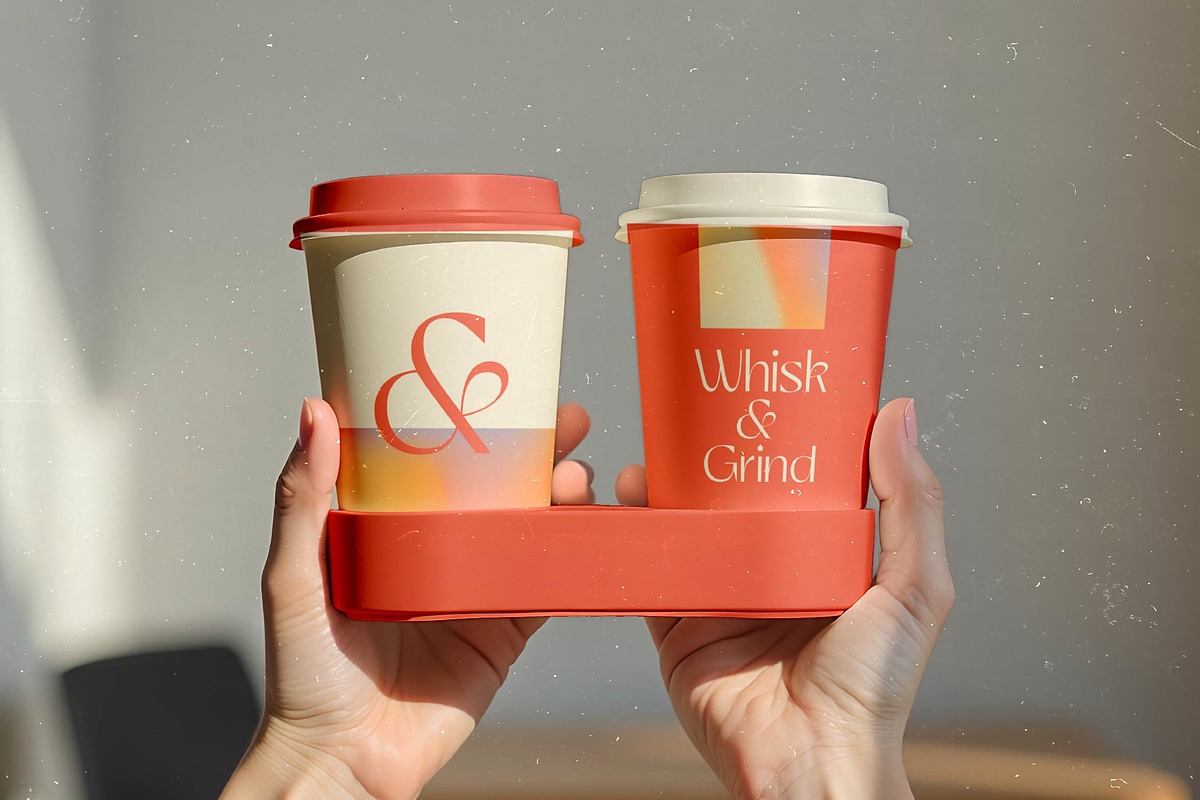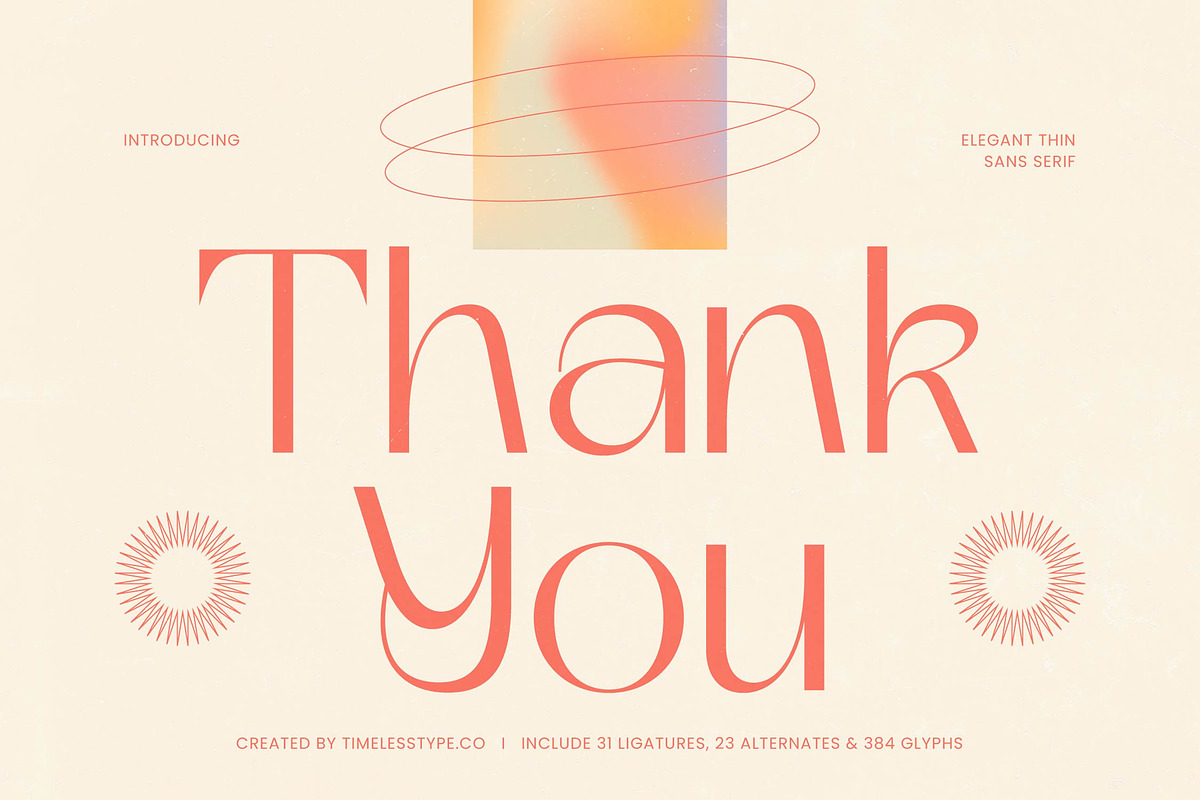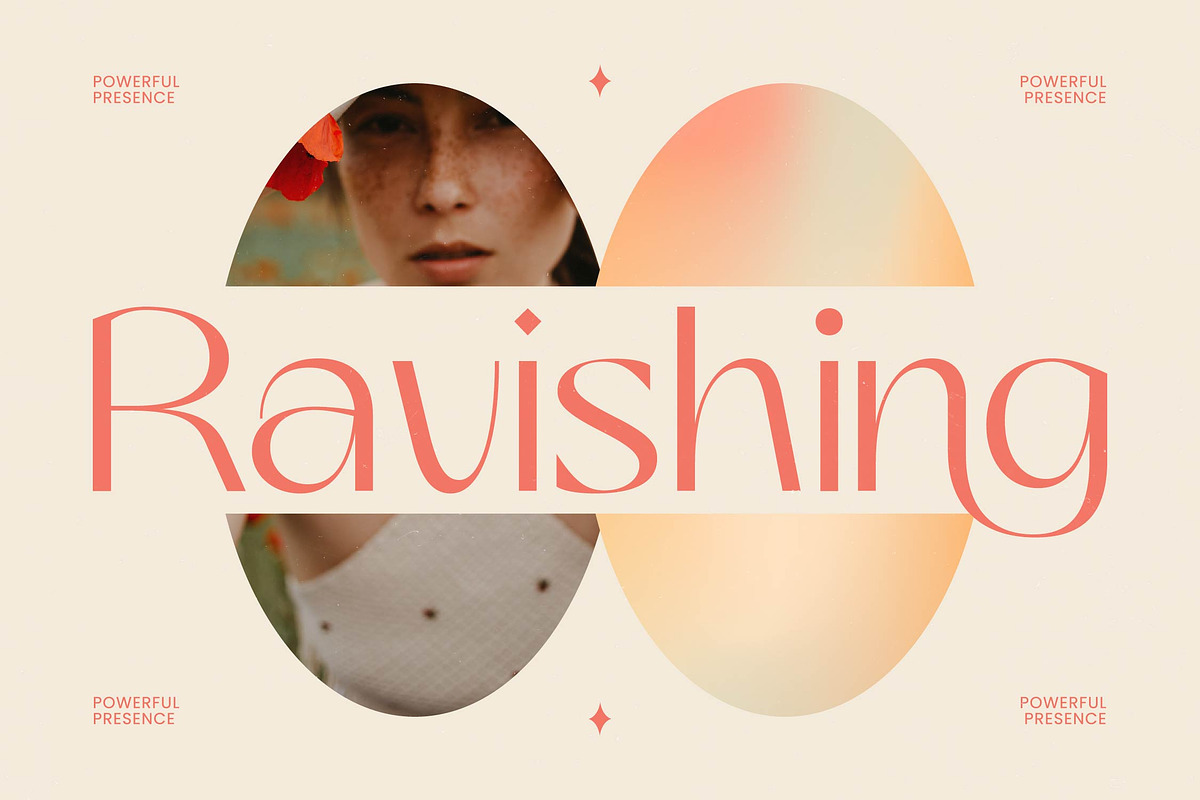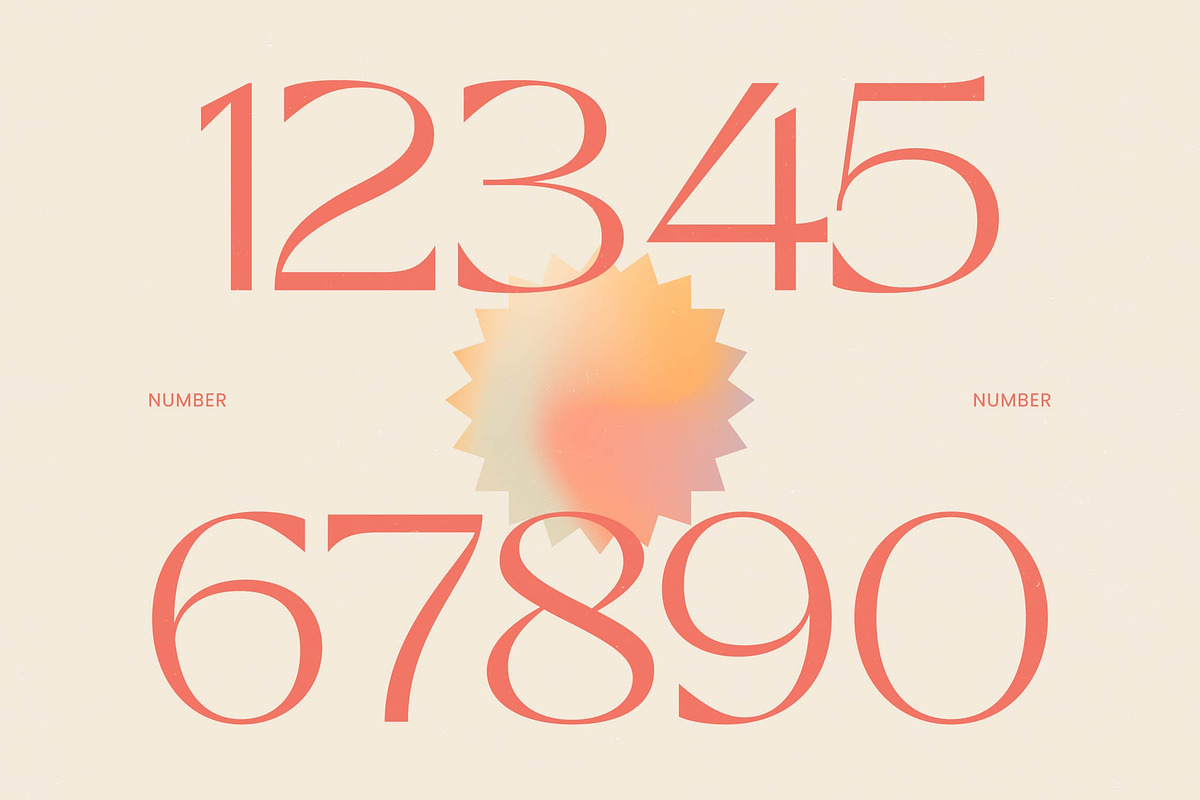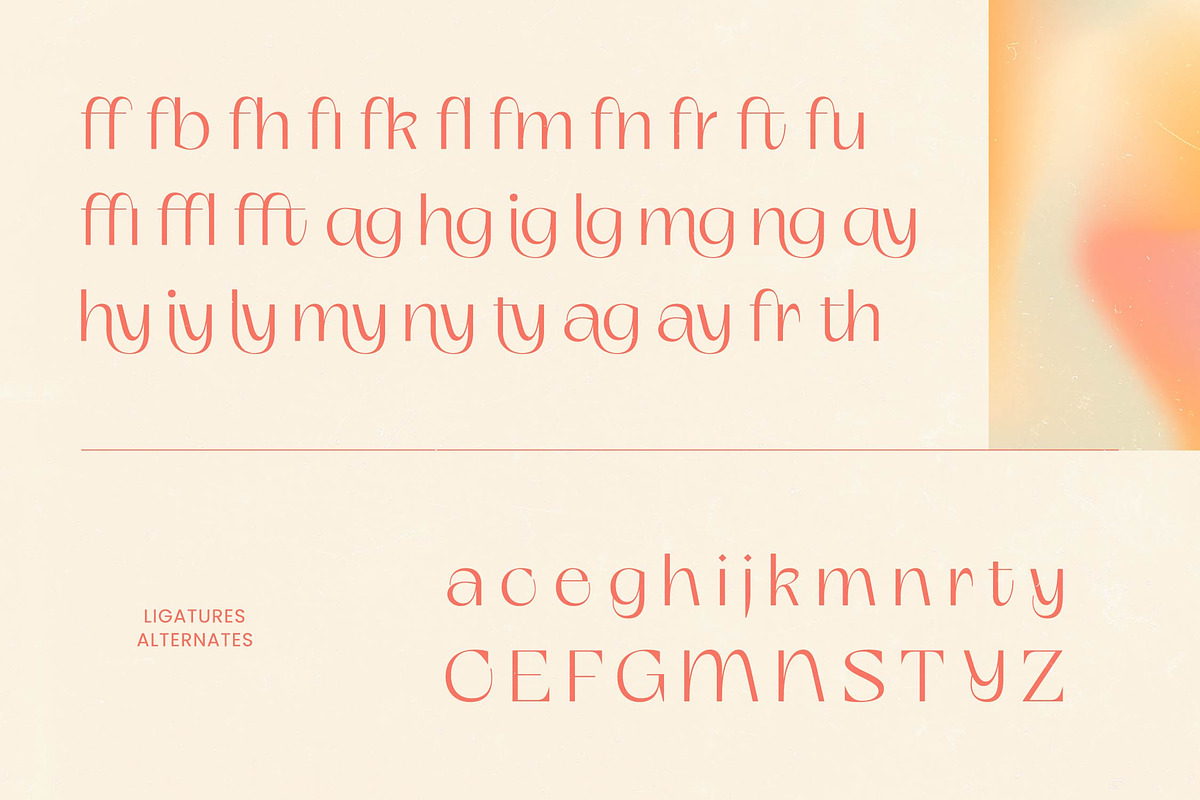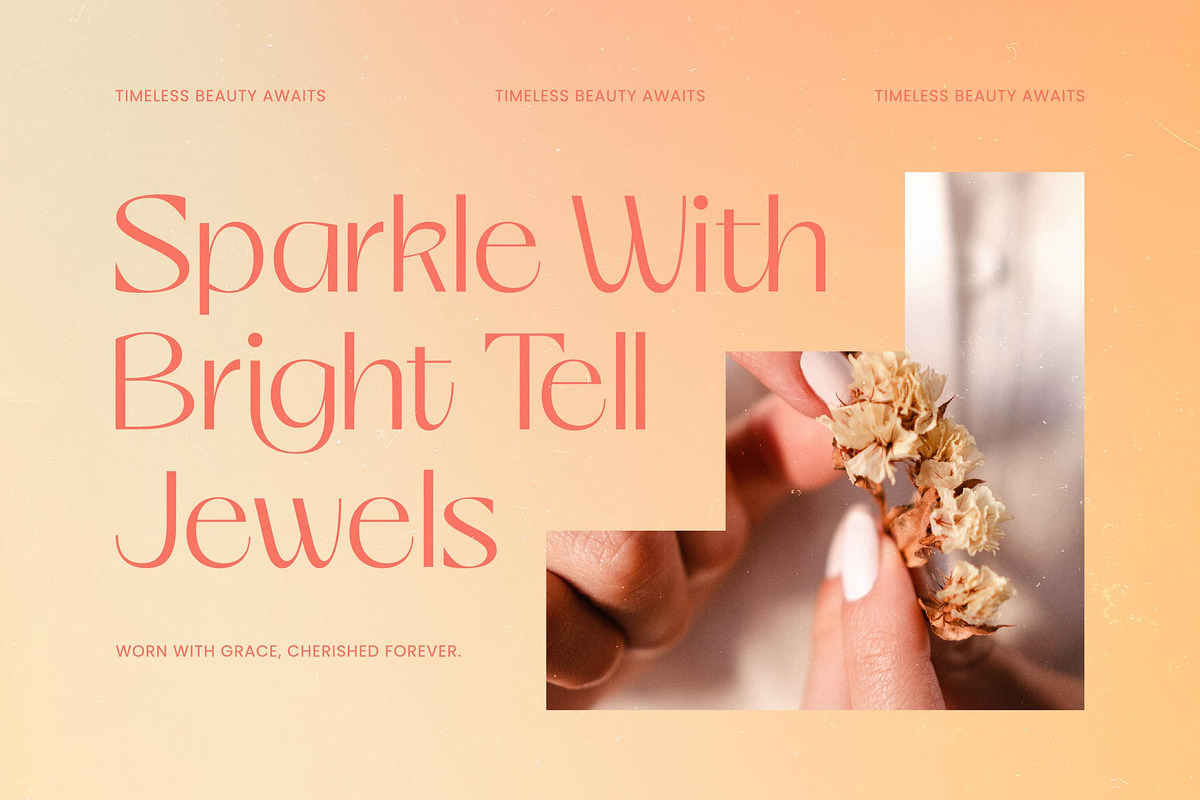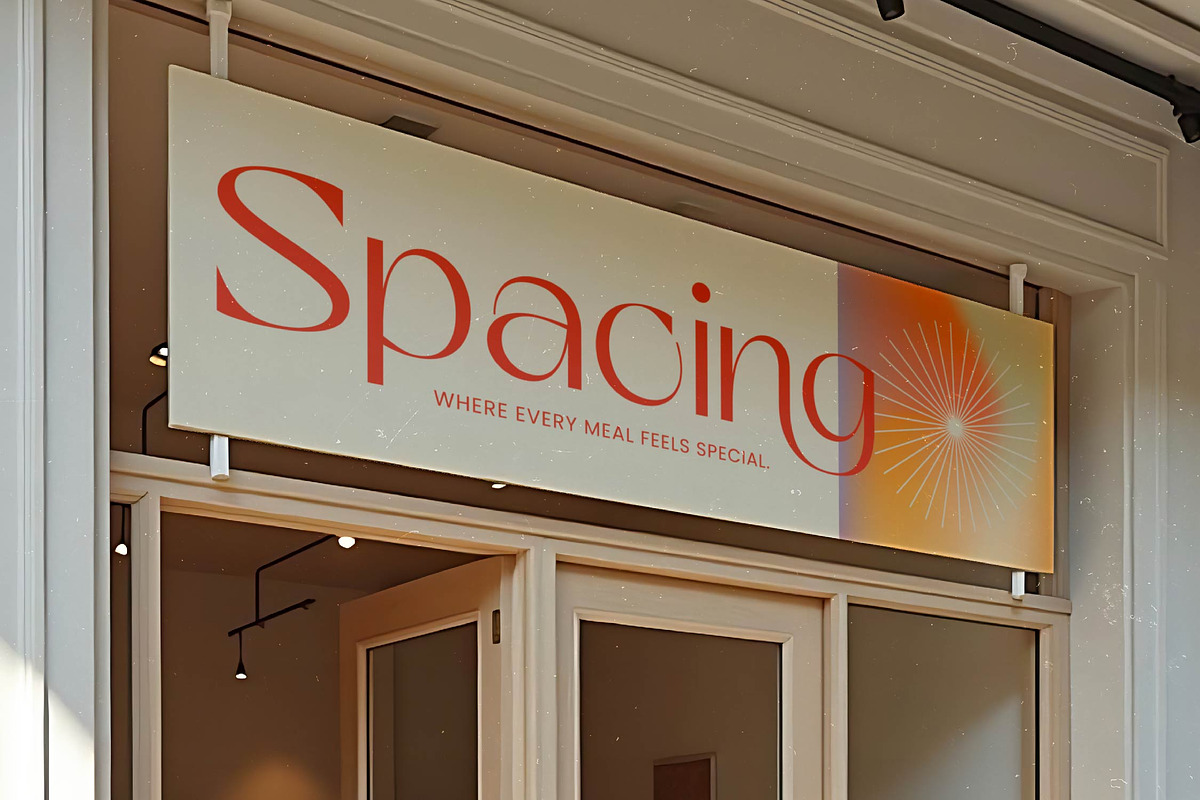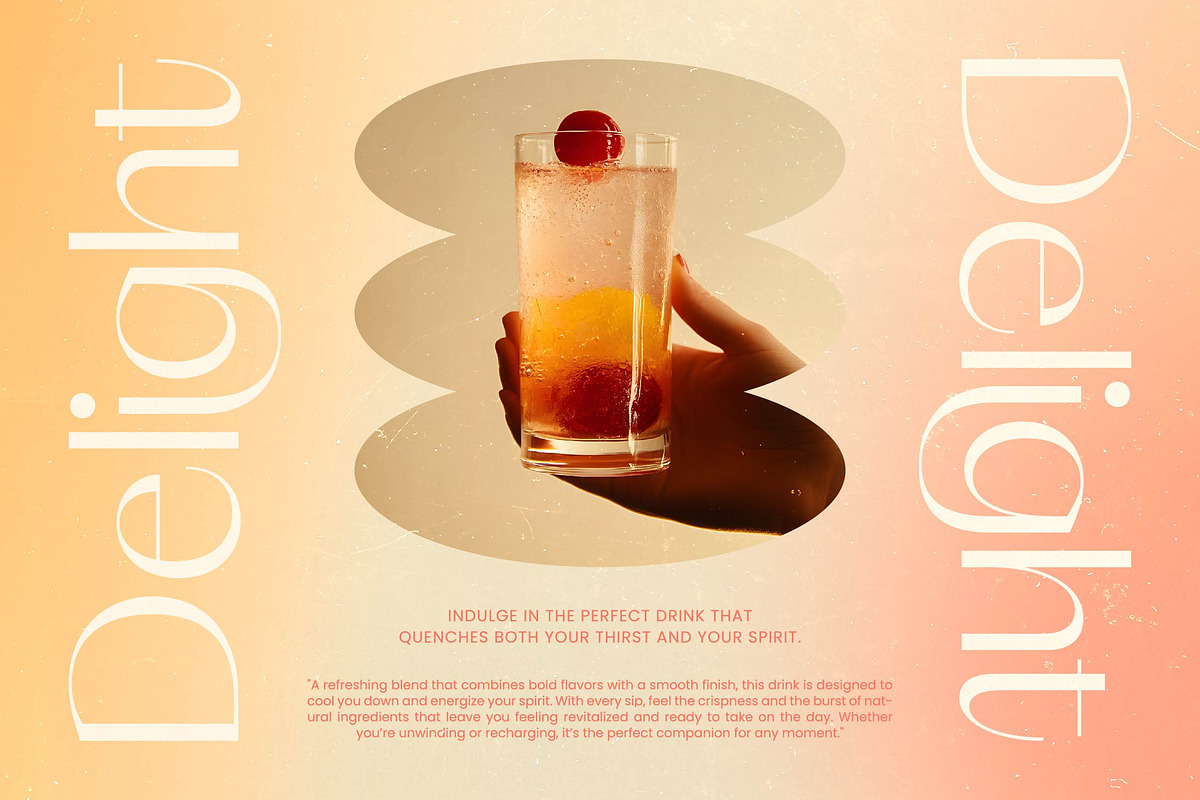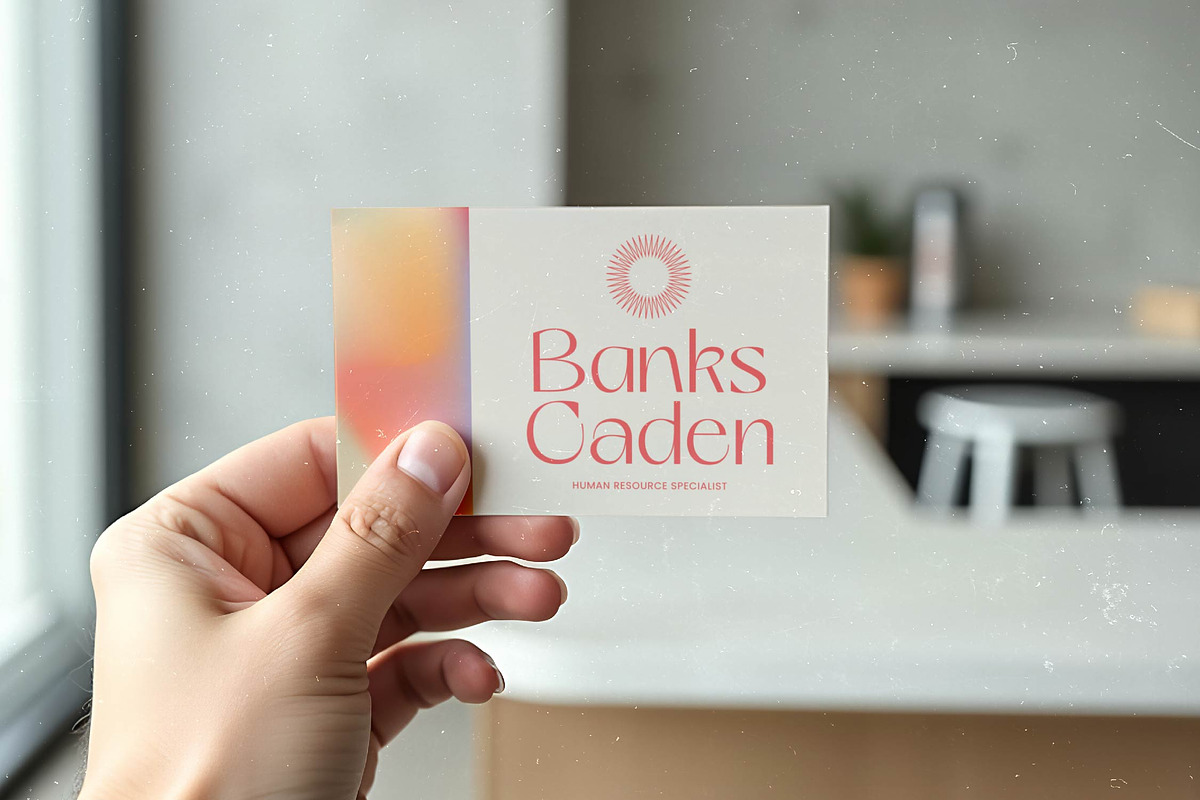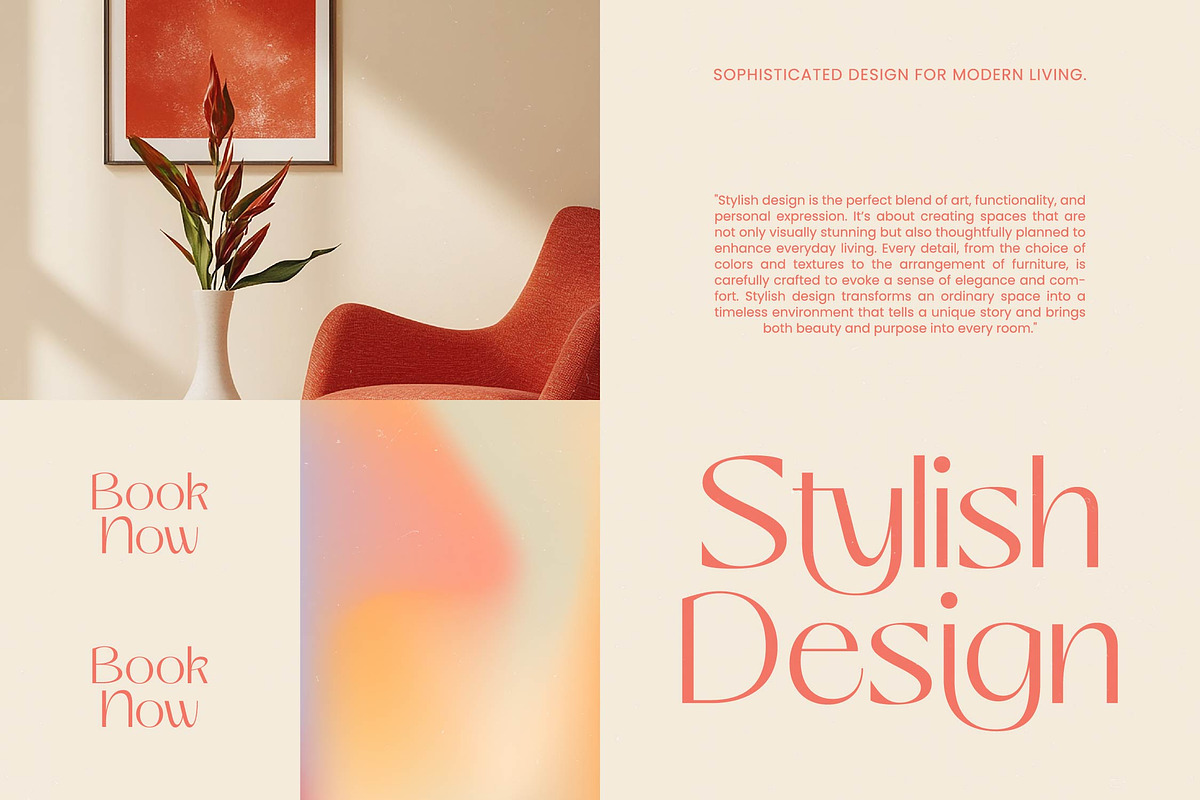
Smyth Kelagon Elegant Thin Sans
Smyth Kelagon - Elegant Thin Sans Serif , Smyth Kelagon is a breath of fresh air in the world of high-end typography, offering a delicate balance of ethereal beauty and structural precision. This exquisite typeface transforms every word into a piece of art, making it the perfect choice for designers who seek an effortless sense of sophistication.
Inspired by the fluid lines of contemporary sculpture and the soft glow of a Mediterranean sunset, this font captures a timeless aesthetic. Its airy forms and elongated strokes evoke a sense of weightless elegance, reminiscent of high-fashion layouts and premium gallery invitations.
This typeface exudes a refined confidence that is essential for a modern serif display feel even within its sans-serif structure, delivering a luxury typography experience that commands attention. With its high-contrast serif sensibilities and editorial font proportions, it provides a massive branding impact for projects that require a touch of class.
Staying ahead of the modern serif trend, this typeface leans into the popular demand for editorial display fonts that feel both nostalgic and futuristic. It is the pinnacle of character-driven typography, catering to the current shift towards more organic, expressive, and light-weight letterforms in digital media.
From high-concept logo design to cohesive branding systems, this font is a versatile powerhouse for any creative's toolkit. It shines in editorial spreads, premium packaging, romantic wedding stationery, and the fast-paced world of fashion marketing.
The package is incredibly comprehensive, featuring a vast collection of unique ligatures and creative alternates to help you customize your designs. It also includes full multilingual support and a wide array of international characters, ensuring your message reaches a global audience with ease.
Numerals
Punctuations (OpenType Standard)
Accents (Multilingual Characters)
Ligatures and Alternative Style Stylistic Set